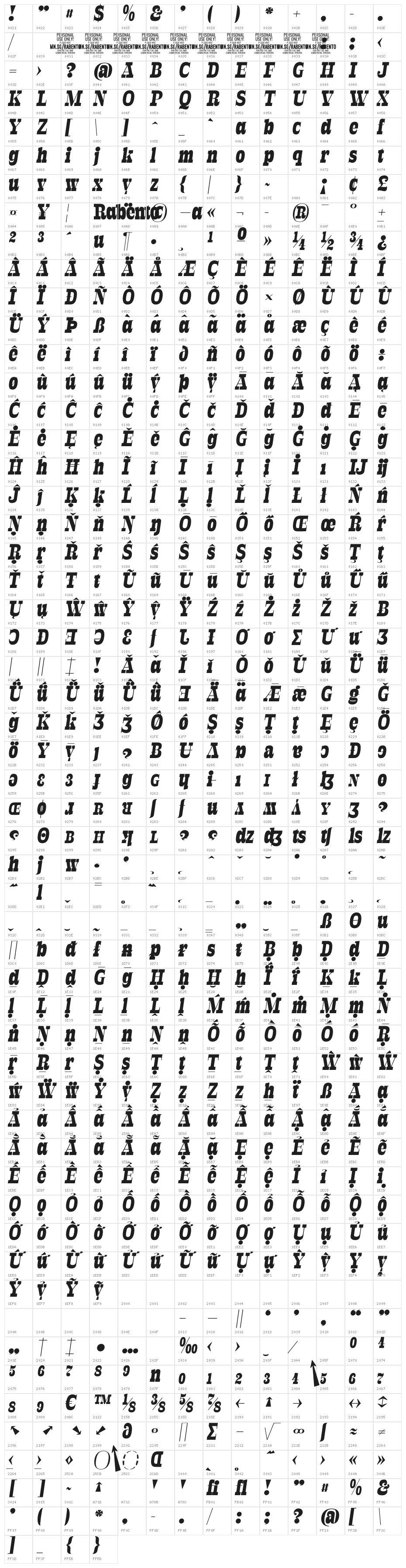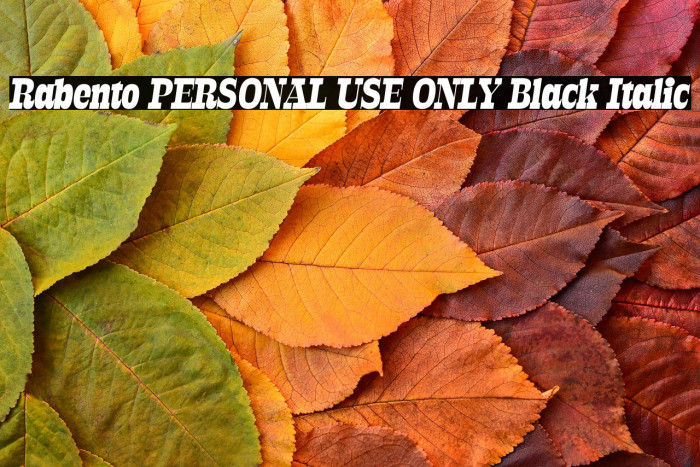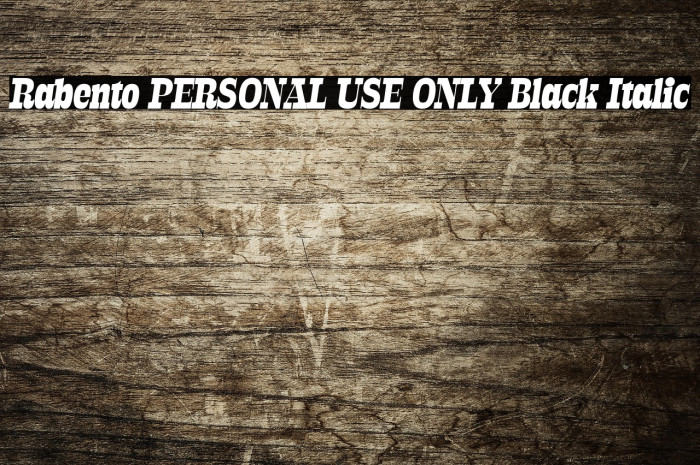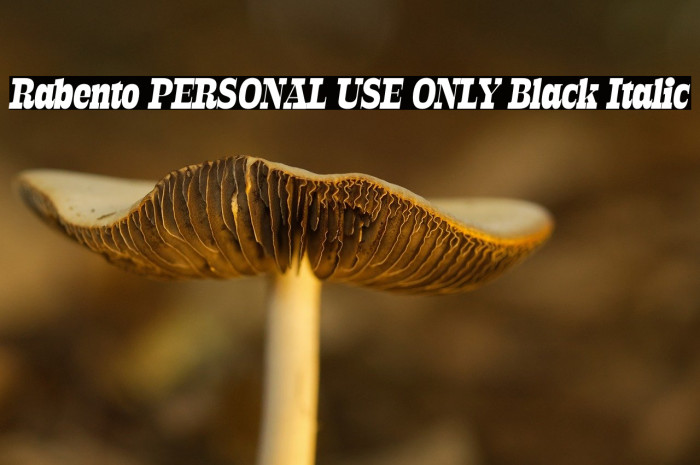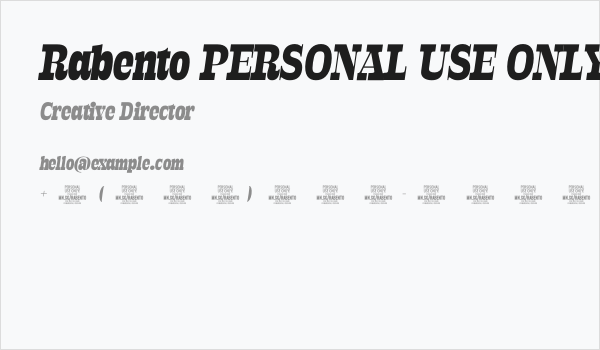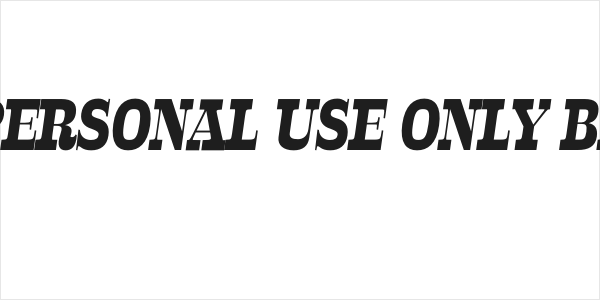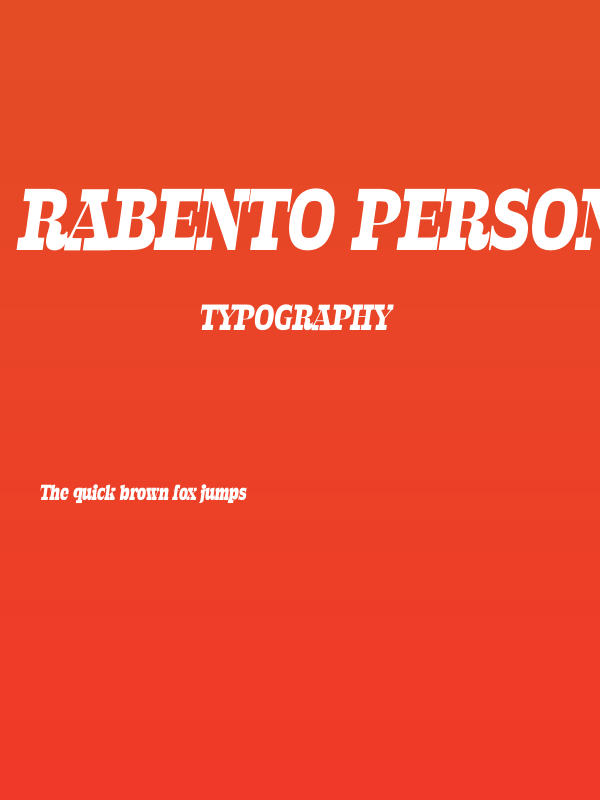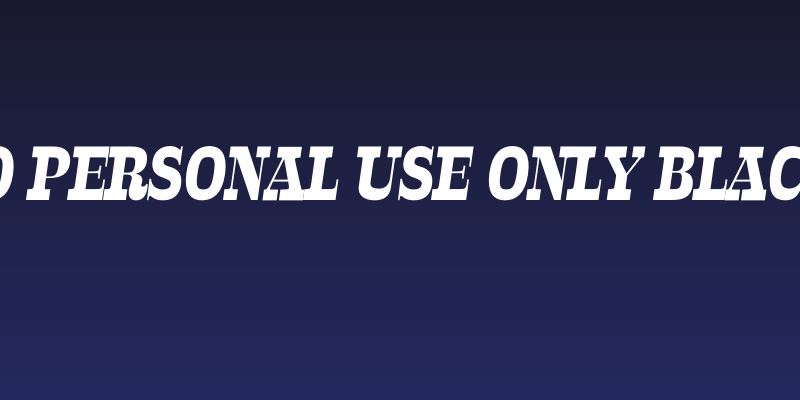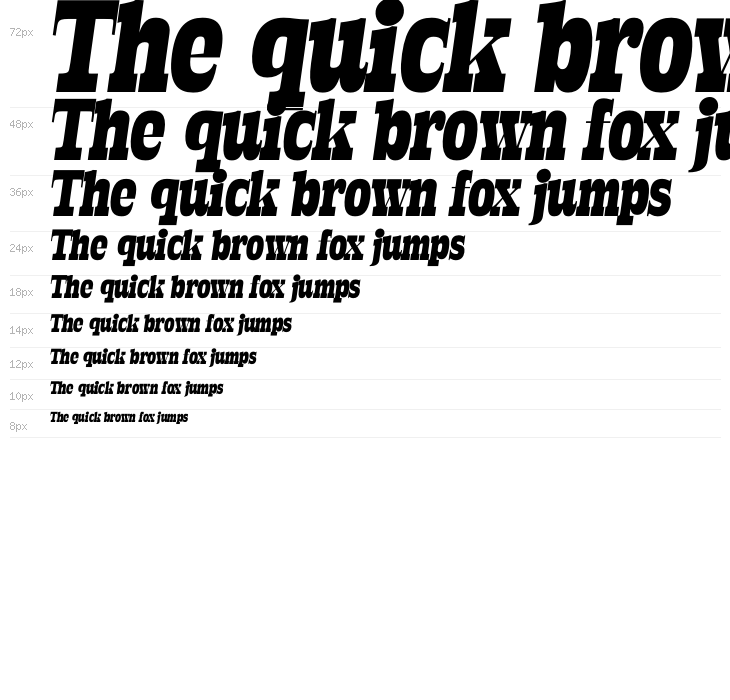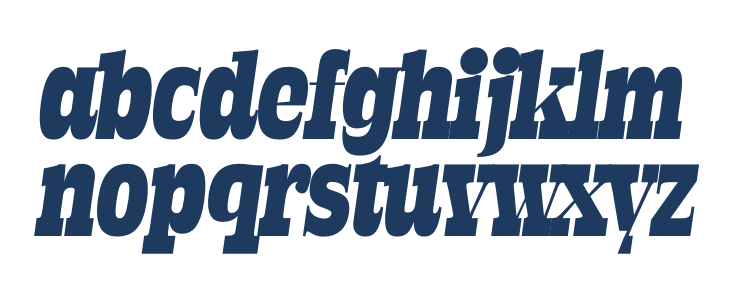
Rabento PERSONAL USE ONLY Black Italic Font
Rabento PERSONAL USE ONLY Black Italic Description
This font exhibits a bold and dynamic style with a pronounced italic slant, giving it a sense of movement and energy. The characters are thick and robust, providing a strong visual impact. The uppercase and lowercase letters maintain a consistent weight, enhancing readability while retaining a distinctive flair. The numerals and special characters are designed to match the boldness of the alphabet, ensuring uniformity across all text. This font's bold italic nature makes it suitable for attention-grabbing headlines and impactful designs.